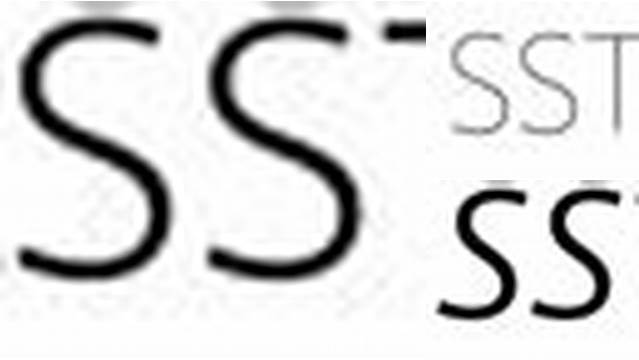
Understanding the SST Japanese Light Font
What is SST Japanese Light Font?
SST Japanese Light Font, as the name suggests, is a typeface designed with a Japanese aesthetic, characterized by its light weight and clean lines. It's often used to convey a sense of modernity, minimalism, and sophistication. This makes it a popular choice for a wide range of design projects, from websites and apps to print materials like brochures and posters. This font is not only visually appealing but also highly legible, ensuring that your message is communicated effectively. When choosing a font, designers must consider readability and visual impact, and the SST Japanese Light Font strikes a balance between these two aspects.
Understanding the intricacies of font design is crucial for effective communication. SST Japanese Light Font stands out because of its unique characteristics. The designers paid meticulous attention to detail, ensuring that each character resonates with both form and function. By employing specific line weights and shapes, they achieved a typeface that seamlessly blends tradition with modernity. This is why the font is appreciated across various design platforms and applications. Furthermore, it is worth noting that typeface design often requires a deep understanding of both the aesthetic preferences and the technological capabilities of the target audience. This holistic approach enables designers to create typefaces that resonate culturally and are easily implementable on different digital platforms.
Key Features of SST Japanese Light Font
The SST Japanese Light Font boasts several standout features. Its light weight makes it perfect for body text where readability is paramount. The clean lines contribute to a modern and uncluttered look, making it suitable for minimalist designs. The Japanese aesthetic adds a touch of elegance and sophistication. Here are some key features:
- Light Weight: Enhances readability and reduces visual clutter.
- Clean Lines: Provides a modern and minimalist appearance.
- Japanese Aesthetic: Adds a touch of elegance and sophistication.
- Versatility: Suitable for various design projects.
- Legibility: Ensures effective communication.
These features collectively make the SST Japanese Light Font a versatile choice for designers aiming to create visually appealing and readable content. Consider how these elements can enhance the overall user experience, whether it's on a website, a mobile app, or in printed media. Designers can employ this font to achieve balance and harmony in their projects, making it an indispensable tool in their creative toolkit. Its adaptability allows it to blend with various design styles, enriching the overall aesthetic and providing a modern, sophisticated feel.
Using SST Japanese Light Font Effectively
Conclusion: Mastering SST Japanese Light Font for Design